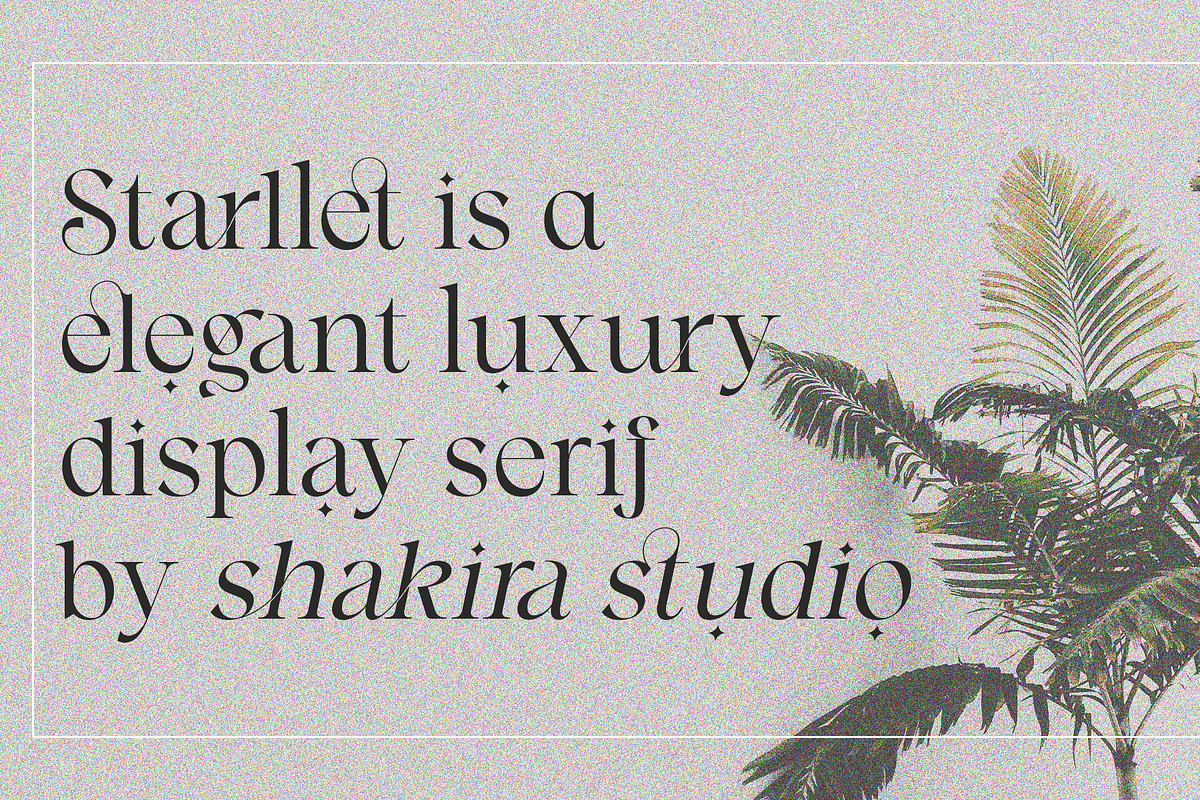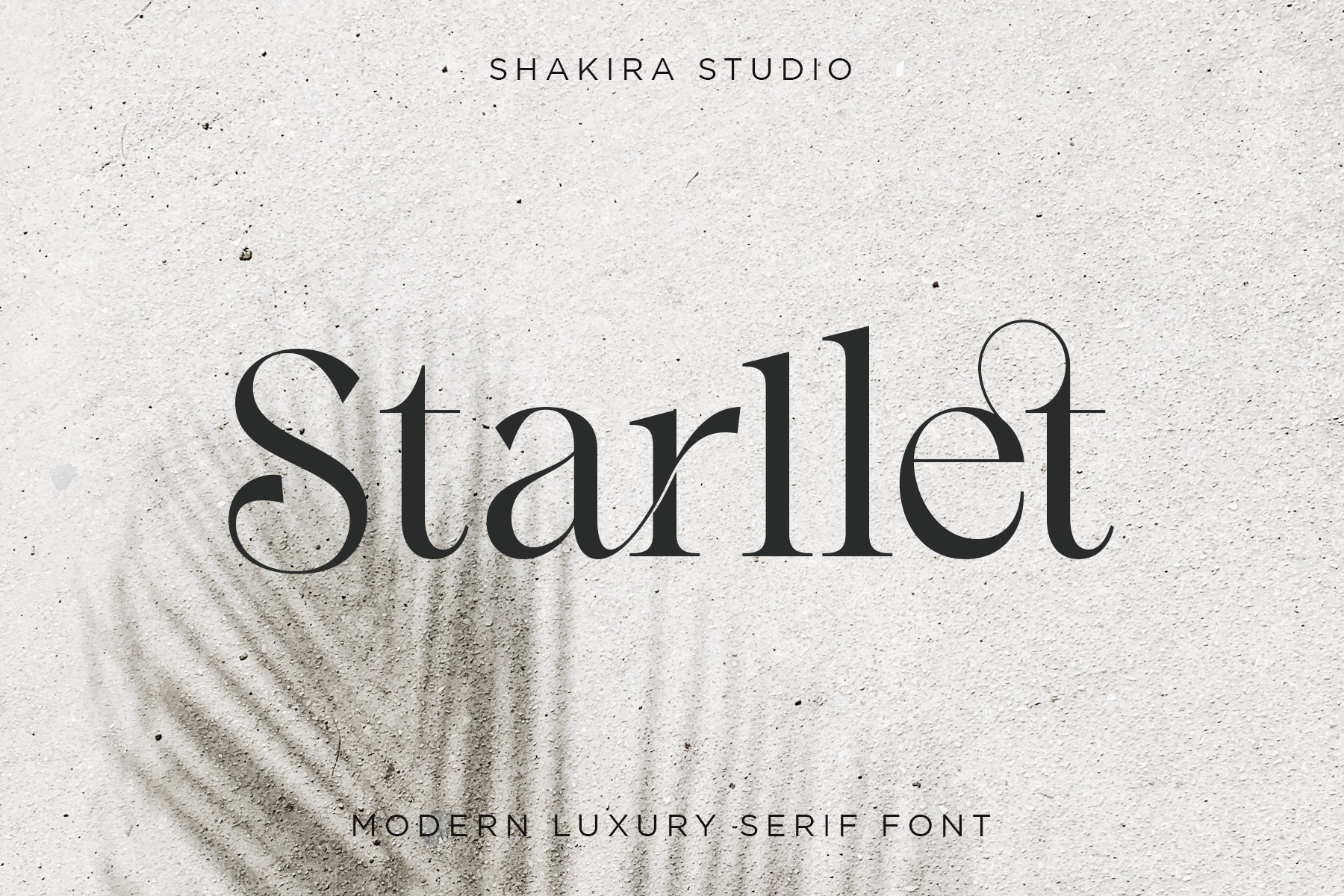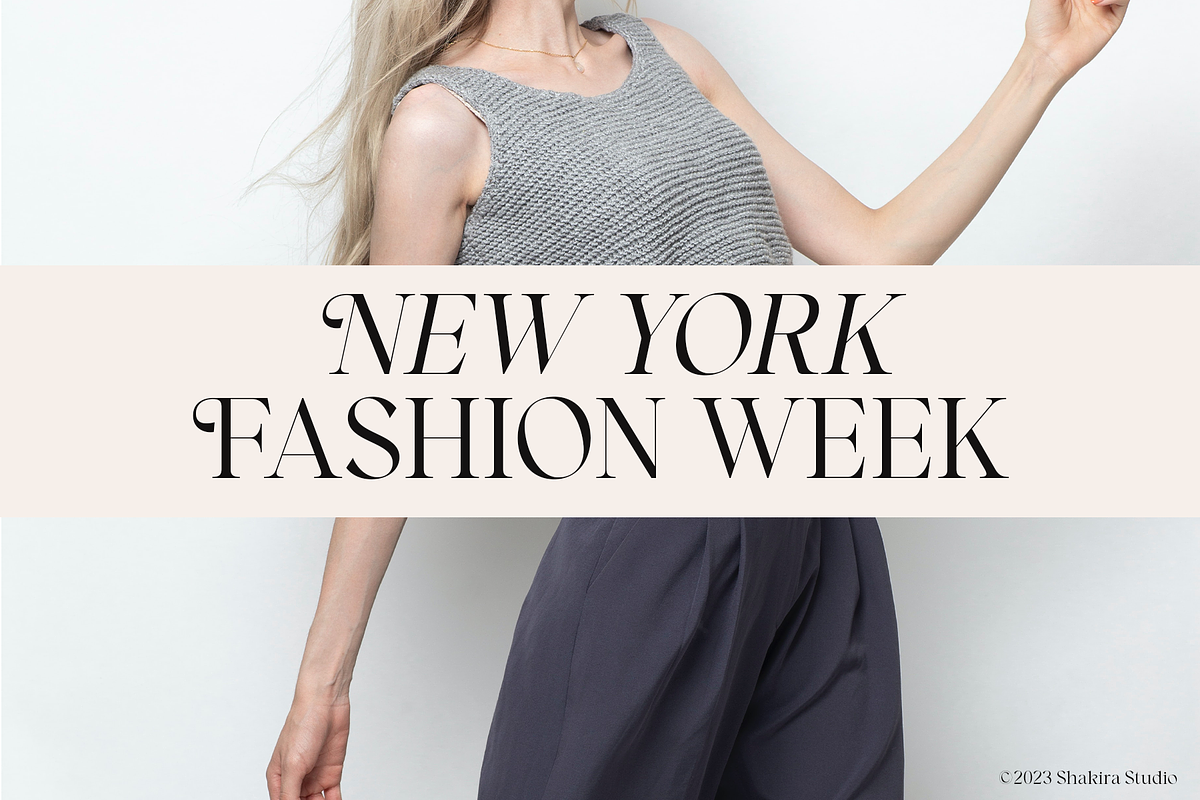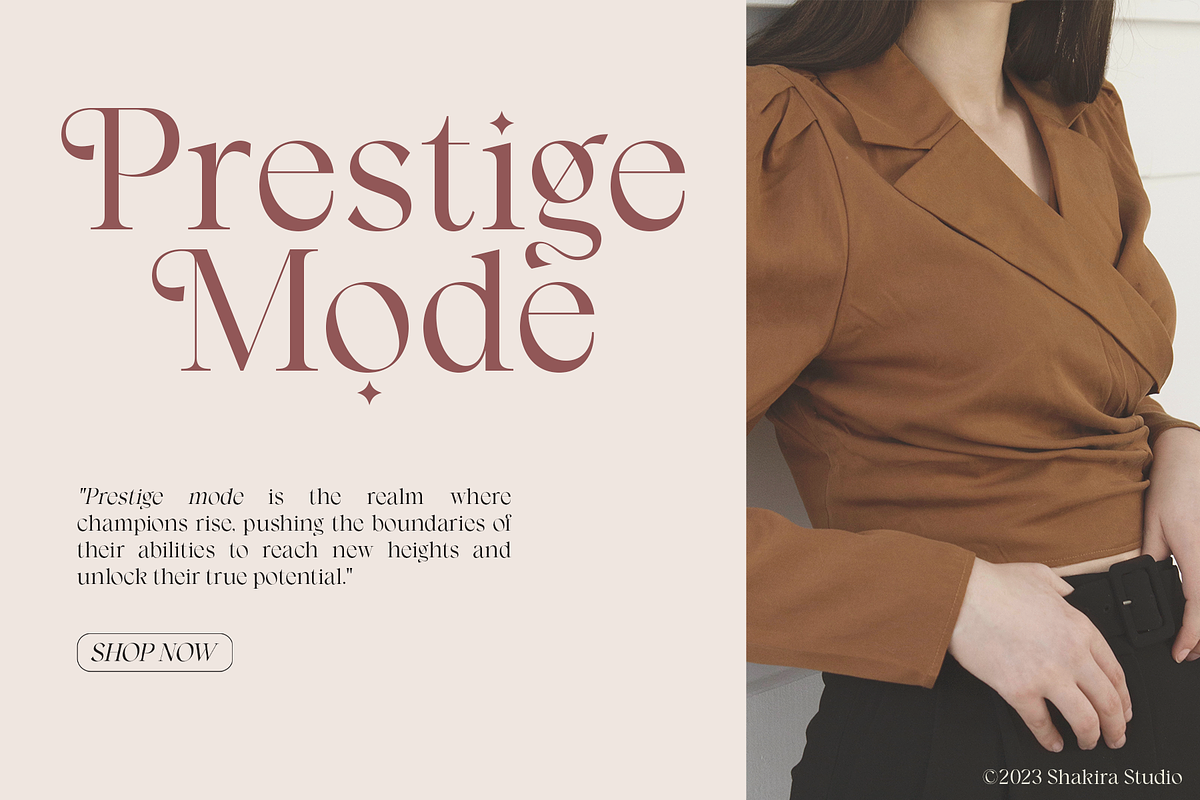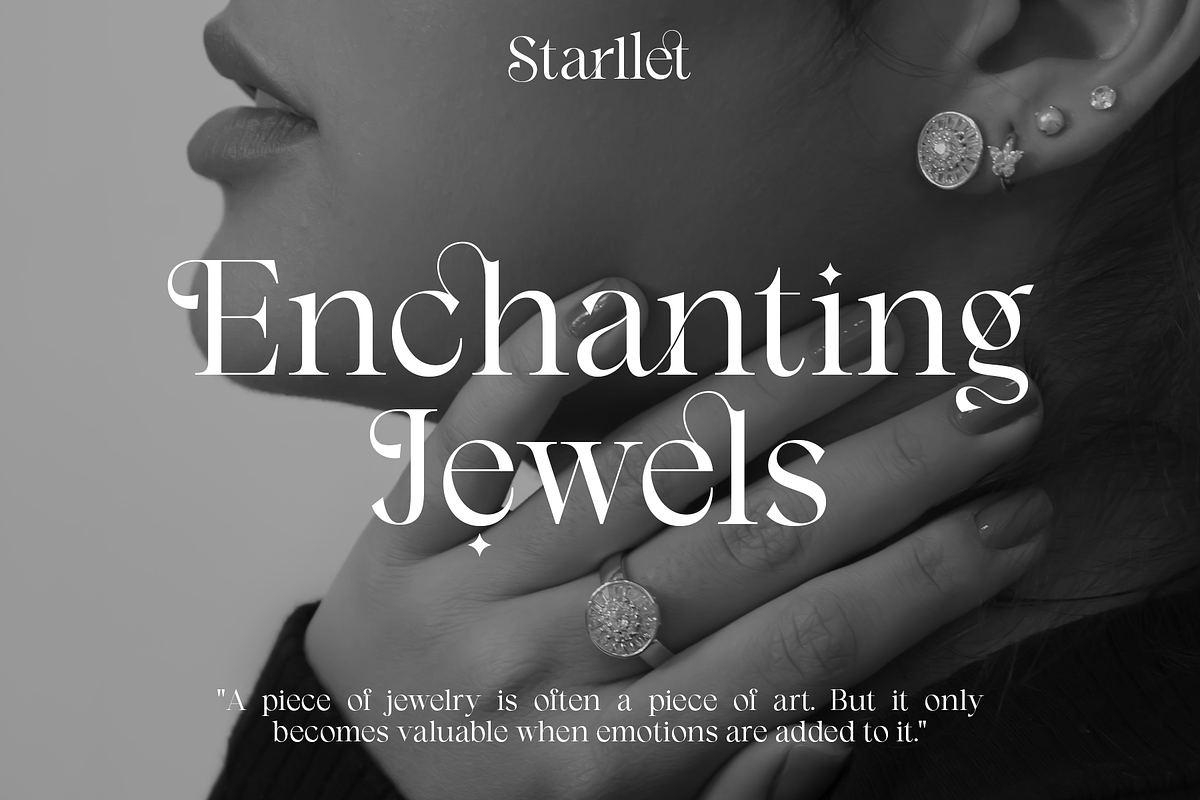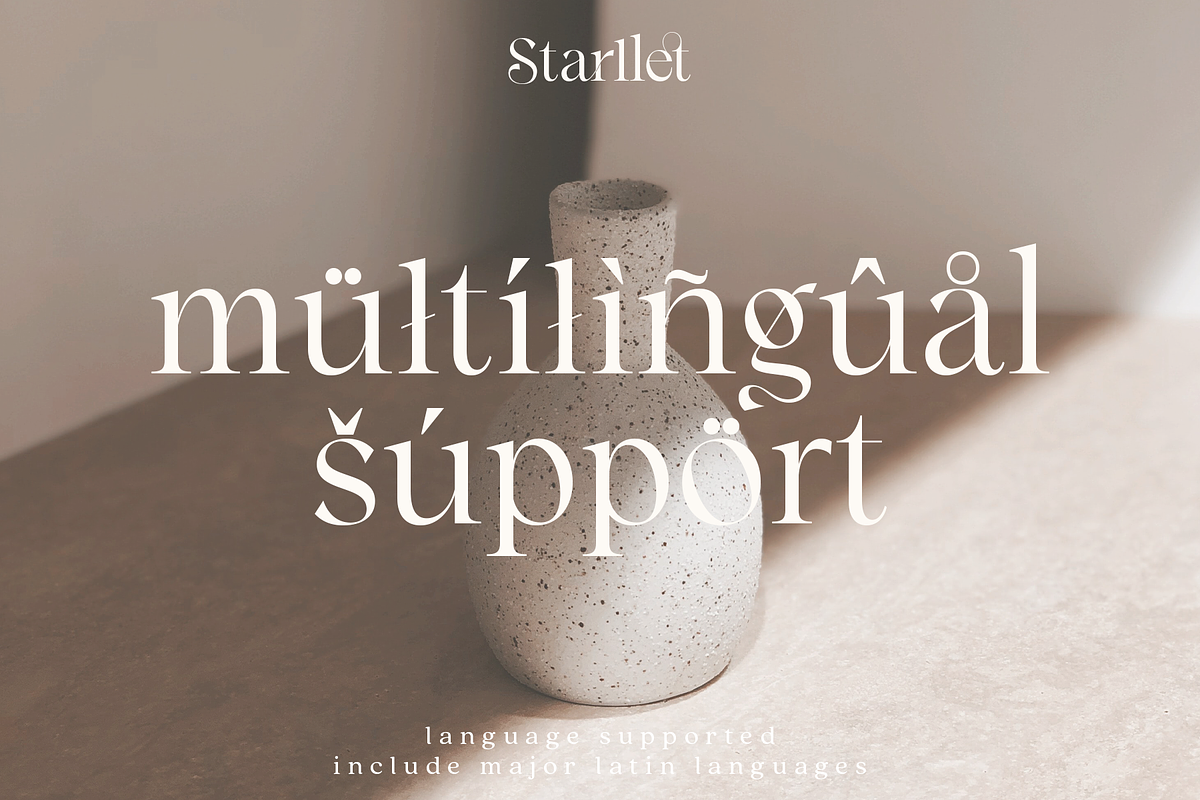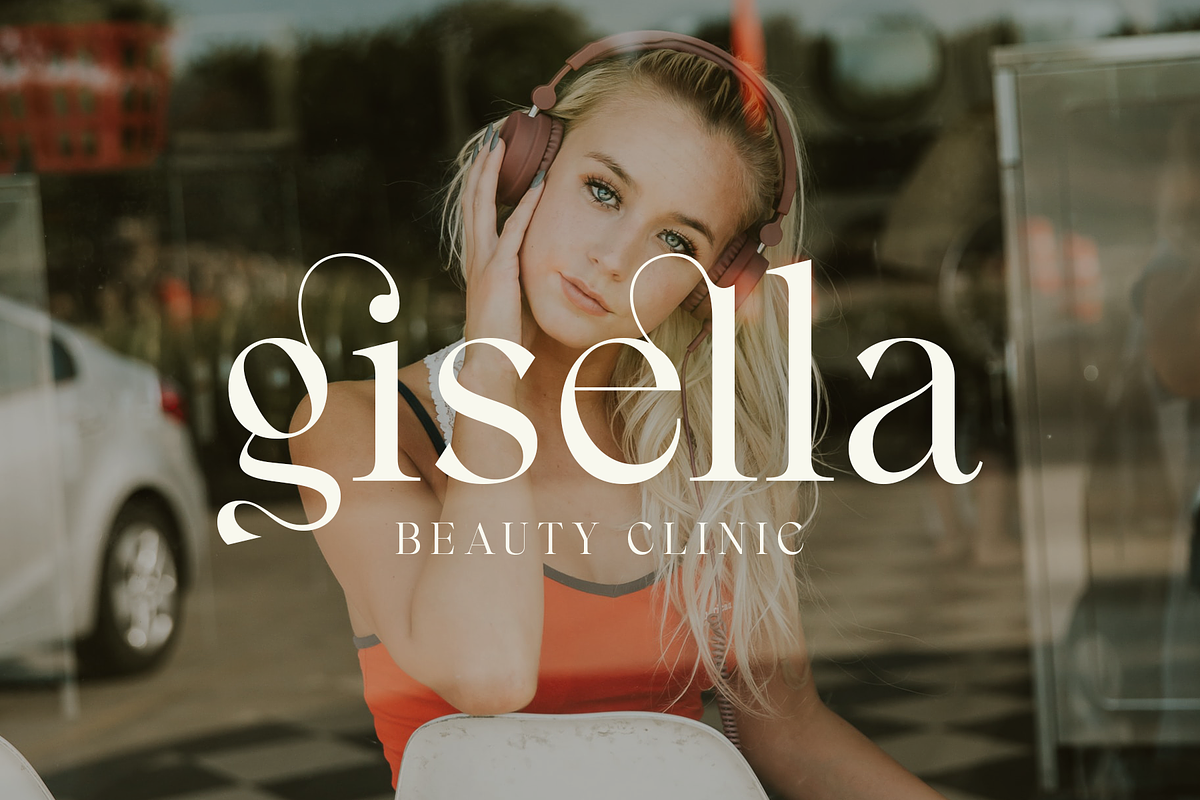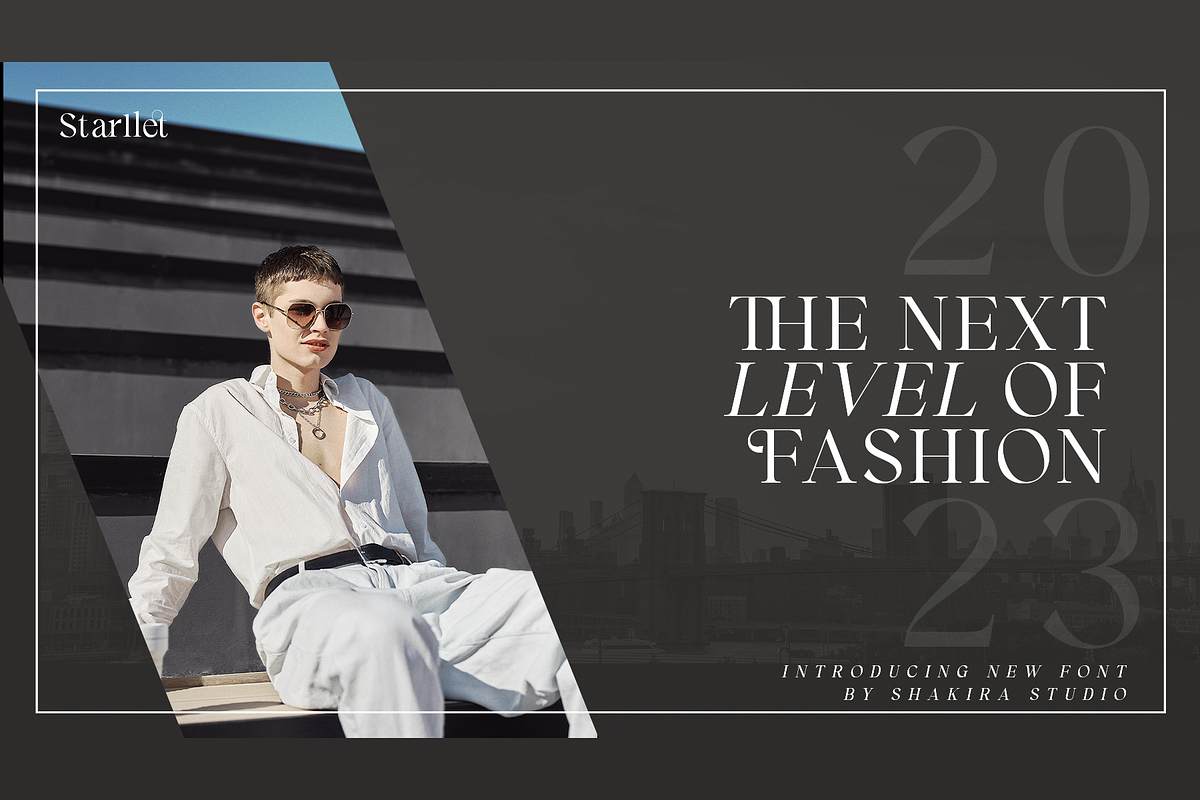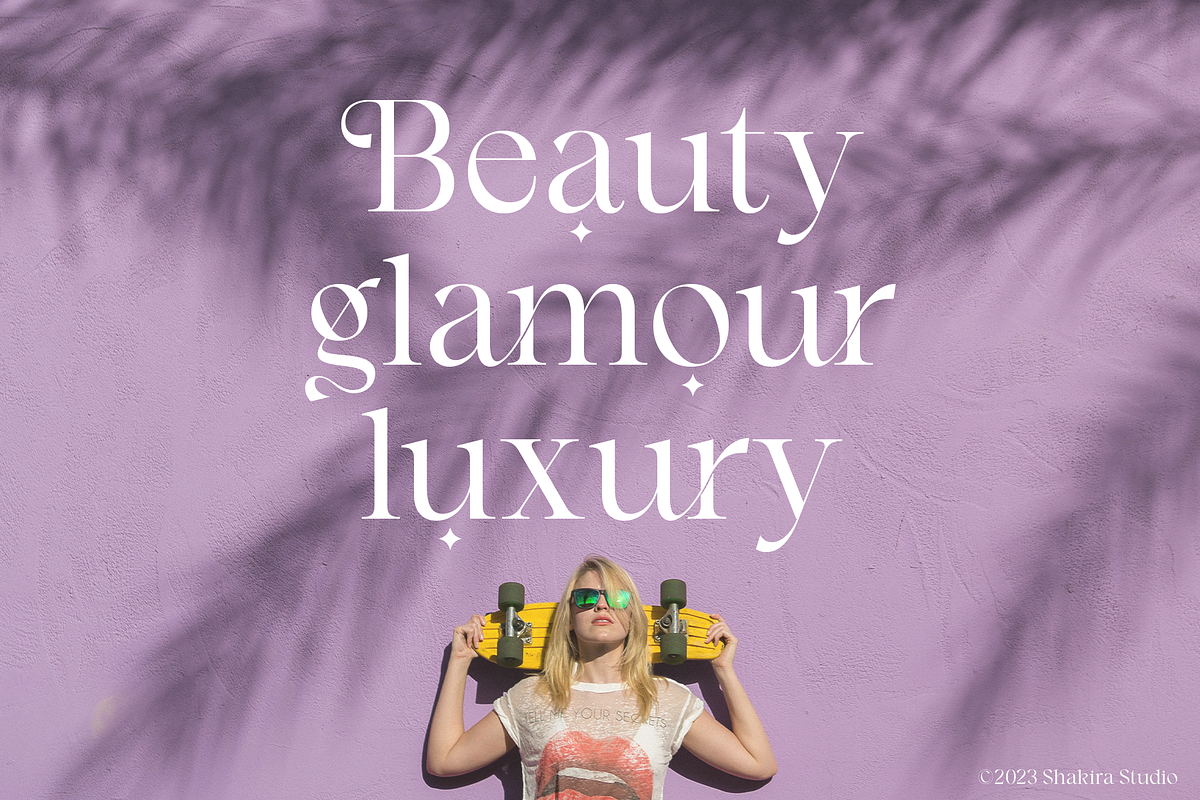
Starllet - Modern Serif Font
Say hello to new serif font, Starllet!
Starllet is a Luxury serif font. Create luxury, gorgeous headlines and elegant designs with a vintage flair. George's contrasting lines and curved terminals give a sleek, elegant look to logos, holiday cards, wedding invitations, quotes, advertisements, and more.
Starllet has full set of modern uppercase and lowercase letters, numerals, punctuation, also multilingual symbols. It included opentype features like ligature, alternate and many others.
Multilingual character supports : (Afrikaans, Albanian, Catalan, Croatian, Czech, Danish, Dutch, English, Estonian, Finnish, French, German, Hungarian, Icelandic, Italian, Lithuanian, Maltese, Norwegian, Polish, Portuguese, Slovenian, Spanish, Swedish, Turkish, Zulu)